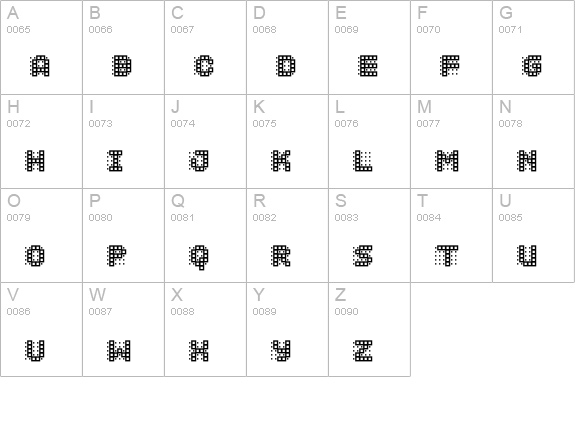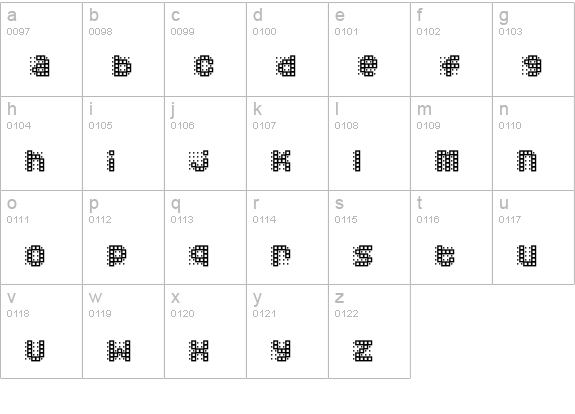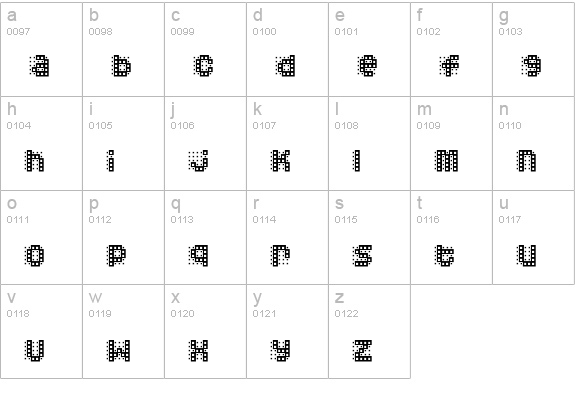
Squarodynamic 03 Font Details
Introducing Squarodynamic 03 font, a captivating typeface that effortlessly combines modernity and geometric elegance. With its clean lines and sharp edges, Squarodynamic 03 exudes a sense of precision and sophistication, making it the perfect choice for various design projects. This font's unique design elements create a visually striking impact, ensuring that your text stands out and leaves a lasting impression. Whether you're designing a logo, poster, website, or any other creative endeavor, Squarodynamic 03 will add a touch of sleekness and professionalism to your work. But what sets Squarodynamic 03 apart is not just its impeccable aesthetics; it is also the freedom it offers. Yes, you read that right! Squarodynamic 03 is freely available to download at FontsMarket.com. This means that you can effortlessly enhance your designs without having to worry about any additional costs. No limitations, no restrictions – just pure creative freedom. Embrace the versatility of Squarodynamic 03 as it effortlessly adapts to various design styles and concepts. Its carefully crafted characters and meticulously balanced proportions ensure legibility, even at smaller sizes. This font is perfect for headlines, titles, and bold statements that demand attention. Enhance your projects with Squarodynamic 03 and experience the seamless blend of contemporary aesthetics and timeless geometric design. Download it today at FontsMarket.com and let your creativity soar. With Squarodynamic 03, the possibilities are endless, and the freedom is yours to explore.